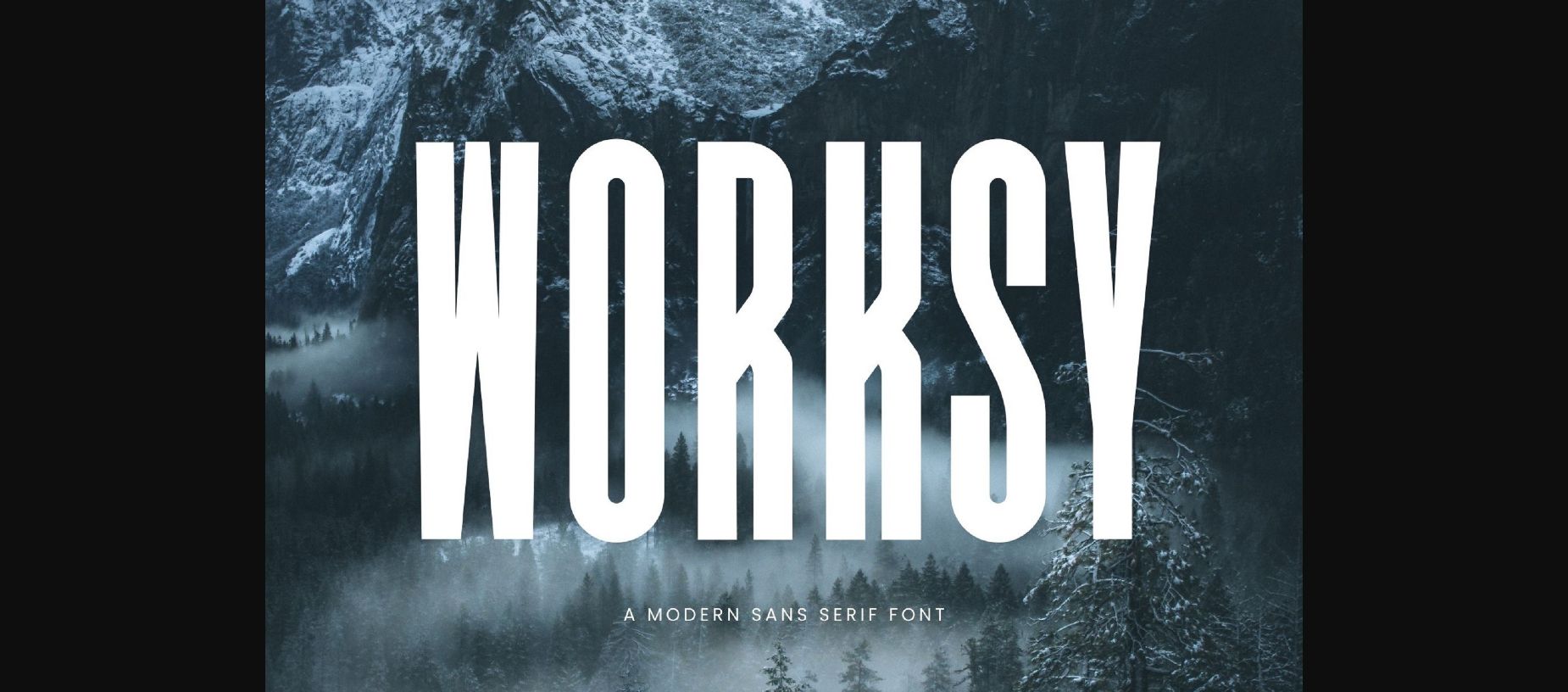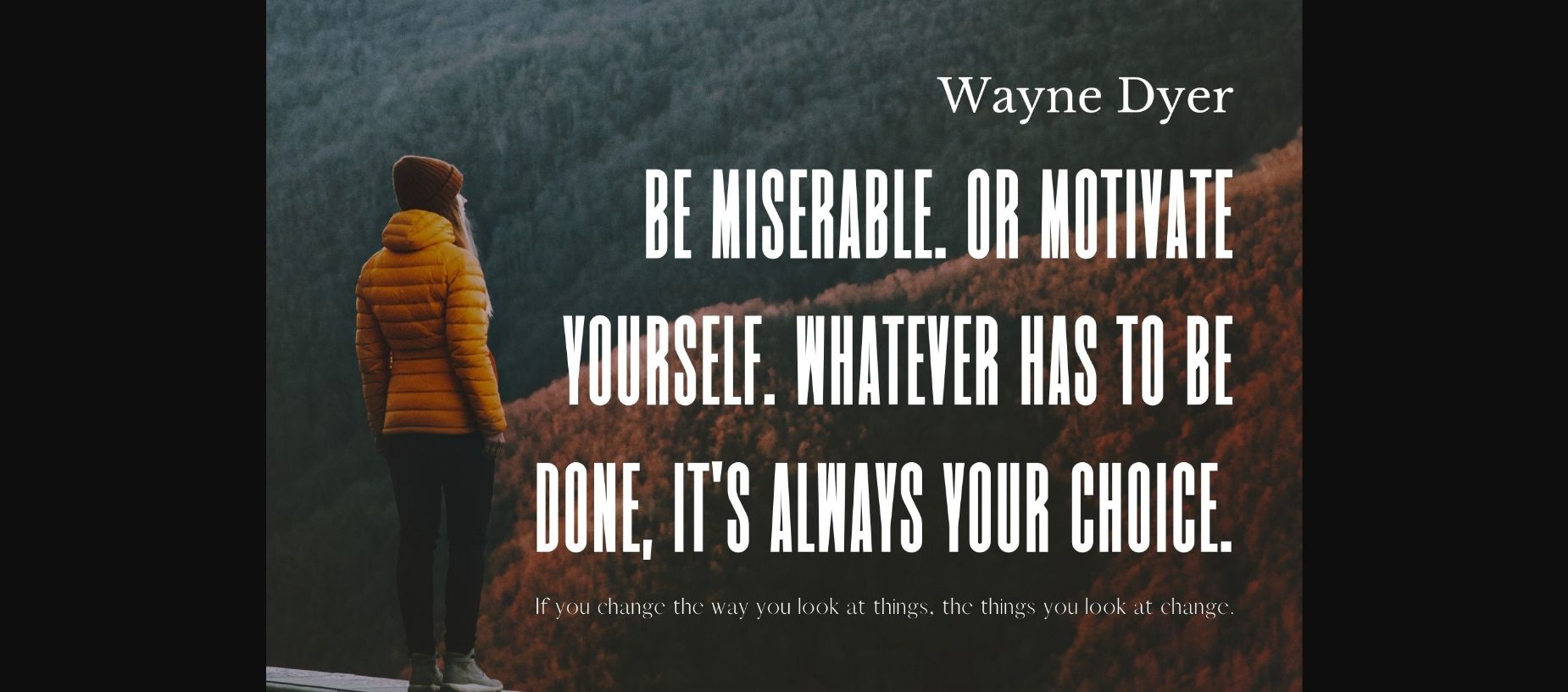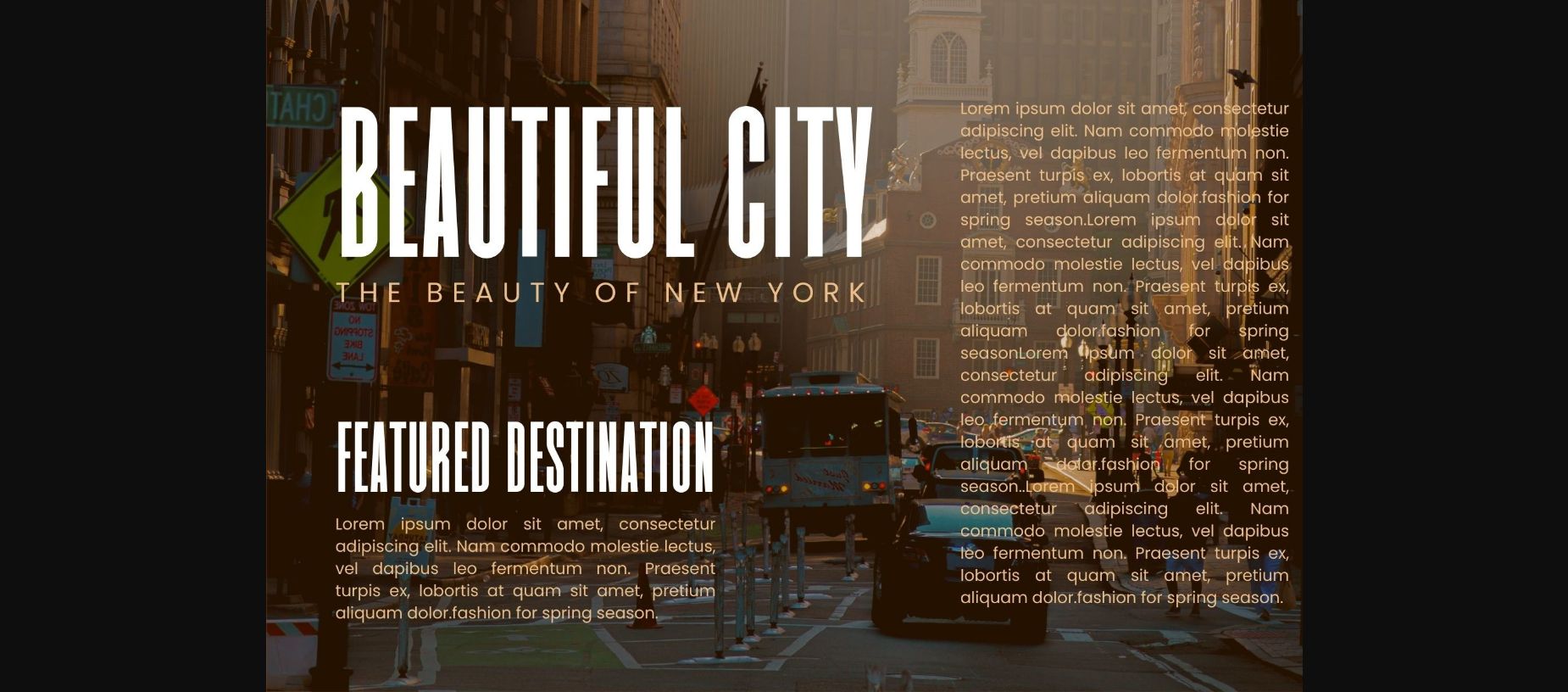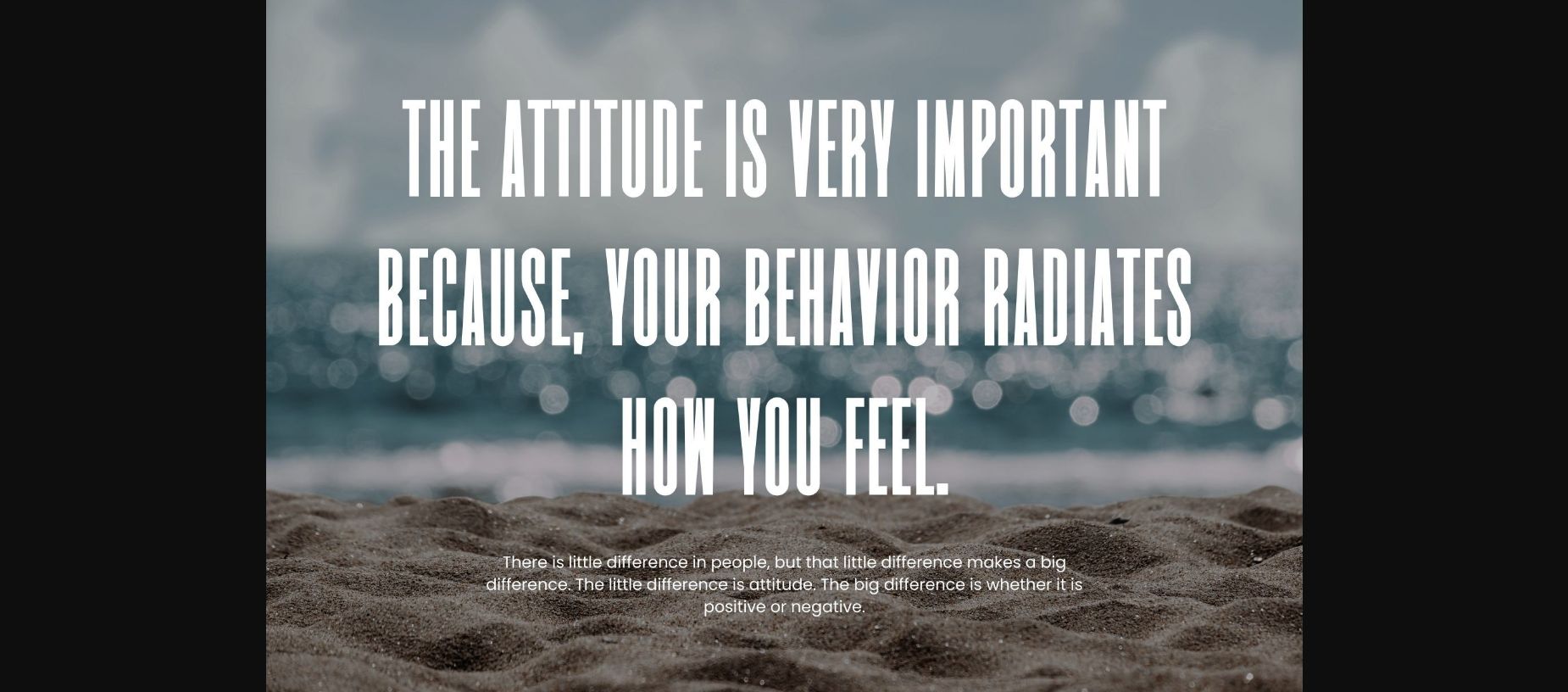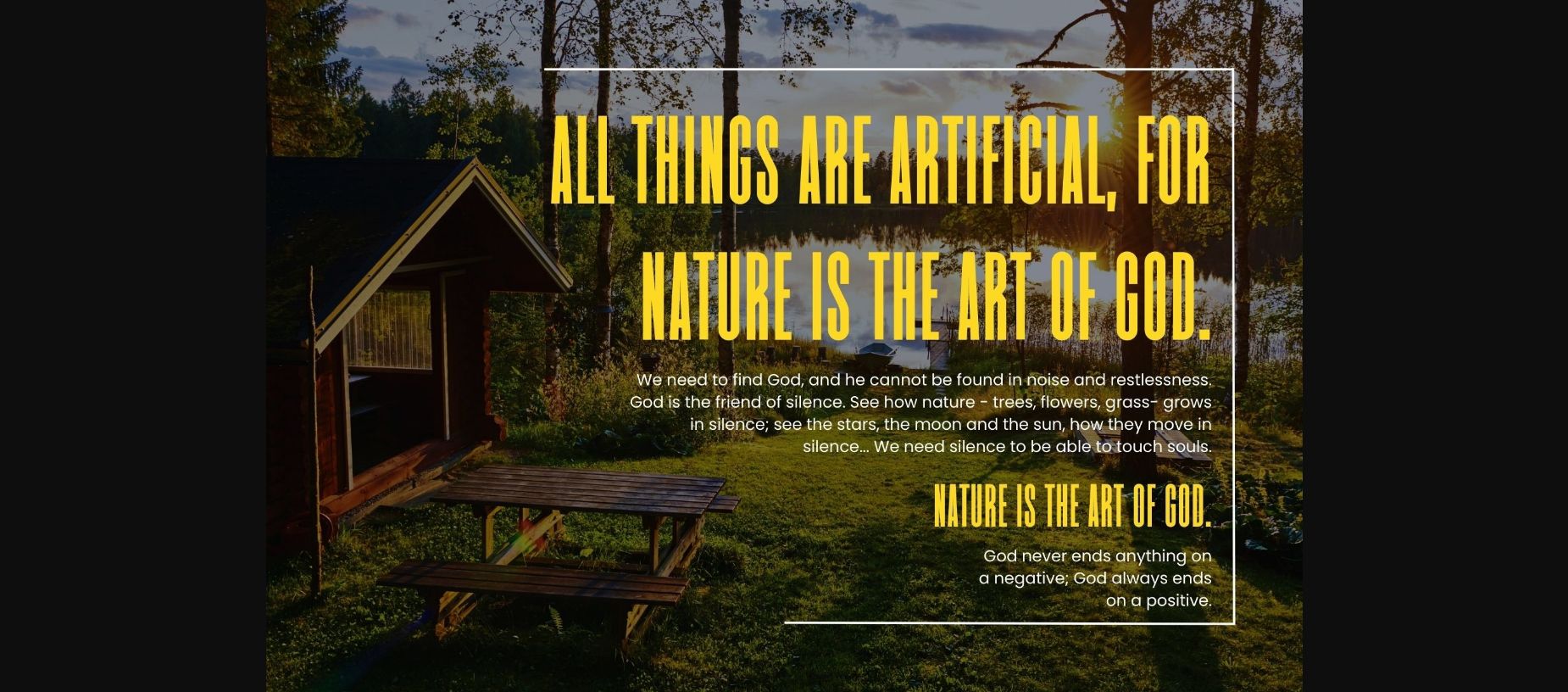
About Worksy Font
Worksy is a contemporary tall sans serif font that combines clean lines with a touch of elegance. Its sleek and minimalistic design makes it perfect for professional documents, branding, and modern designs. With its generous height and straightforward letterforms, Worksy ensures readability and a sophisticated look across various mediums, both digital and print. Whether for headings, logos, or body text, Worksy brings a timeless yet fresh vibe to any project.